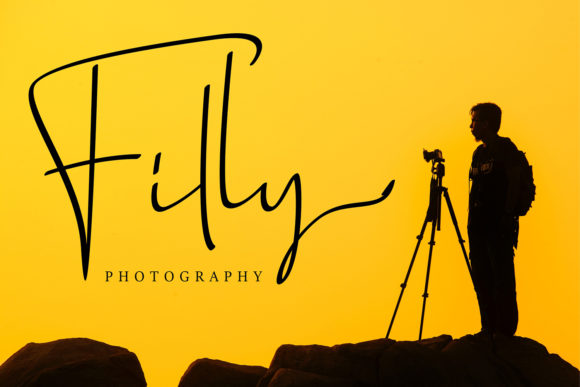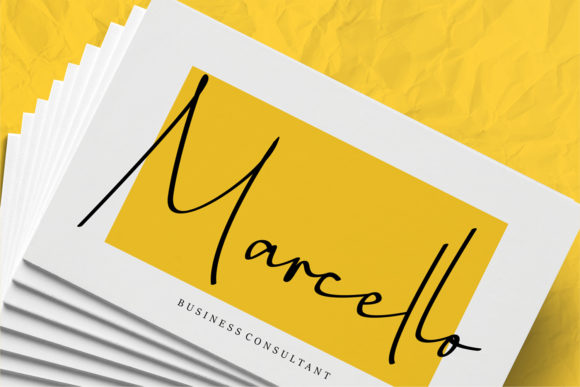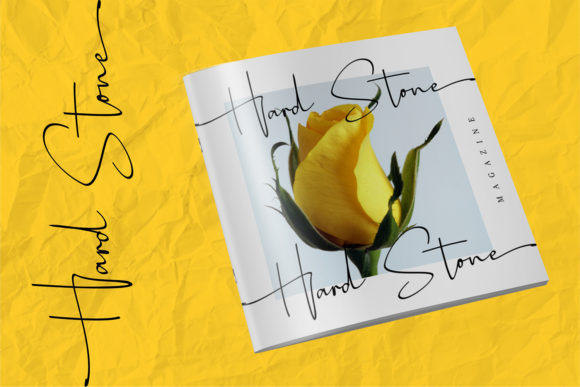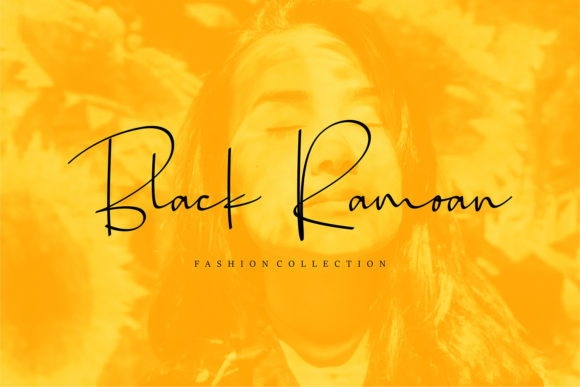
Bellimbing Font: Elevate Your Designs with Elegance and Flair
In the world of typography, a font can make or break a design. It’s the perfect blend of form and function, conveying a message while captivating the audience. If you’re a designer or crafter looking to add a touch of sophistication to your creative projects, look no further than the Bellimbing font. This delicate, elegant, and flowing handwritten font is sure to breathe life into your most imaginative ideas.
The Beauty of Bellimbing Font
Bellimbing font is a masterpiece of typographic artistry. Its characters are meticulously crafted to exude a sense of refinement and poise. Each letter, with its gentle curves and flowing lines, seems to dance across the page, creating a mesmerizing visual experience. The font’s delicate nature makes it an excellent choice for designs that require a touch of elegance, such as wedding invitations, luxury branding, and high-end product packaging.
One of the standout features of the Bellimbing font is its versatility. Its well-balanced characters allow it to seamlessly integrate with a wide range of design styles, from modern and minimalist to vintage and ornate. Whether you’re creating a sophisticated business card or a whimsical greeting card, Bellimbing font adapts effortlessly, adding a touch of class and sophistication to your design.
The possibilities are endless when working with the Bellimbing font. Imagine pairing it with bold graphics for a striking contrast or combining it with watercolor illustrations for a romantic, ethereal feel. The font’s flowing nature makes it perfect for designs that require a sense of movement and fluidity, such as fashion editorials, beauty blogs, and lifestyle magazines.
Why Choose Bellimbing Font?
- Elegance and sophistication: Add a touch of refinement to your designs with Bellimbing’s delicate and flowing characters.
- Versatility: Seamlessly integrate Bellimbing font with a wide range of design styles and concepts.
- Readability: The font’s well-balanced characters ensure excellent readability, making it perfect for body text and headlines.
- Uniqueness: Stand out from the crowd with Bellimbing’s distinctive and eye-catching design.
Tips for Using Bellimbing Font
To get the most out of the Bellimbing font, consider the following tips:
- Pair with contrasting fonts: Combine Bellimbing font with bold, sans-serif fonts for a striking contrast.
- Experiment with colors: Try pairing Bellimbing font with pastel colors or rich jewel tones for a unique look.
- Play with textures: Add texture to your design by combining Bellimbing font with watercolor or hand-drawn illustrations.